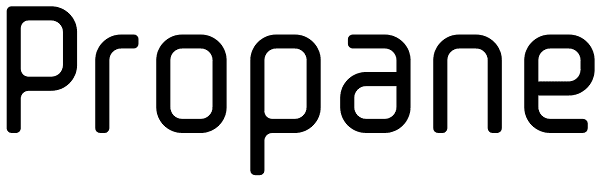
Propane
Propane is a standard family of four fonts containing Regular, Italic, Bold and Bold Italic styles. While the geometry of the upright styles gives an industrial strength, the Italics mixture of upright and slanted line adds an unlikely beauty to the...